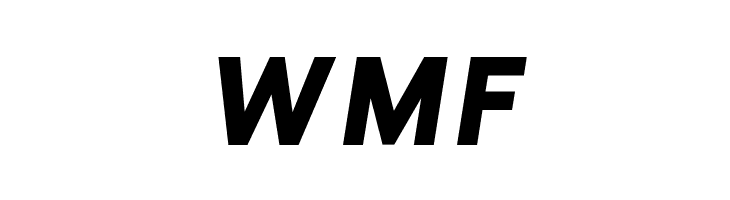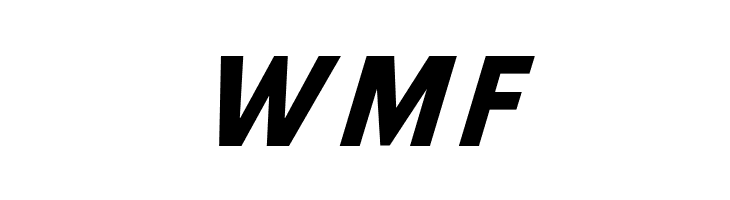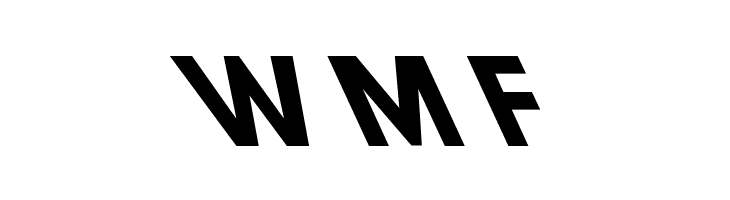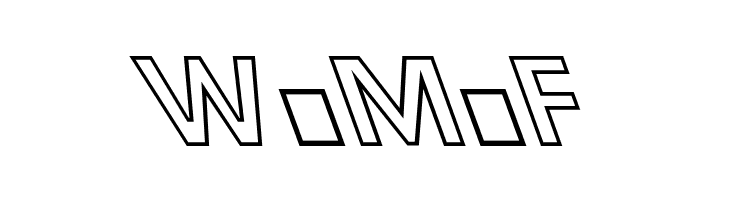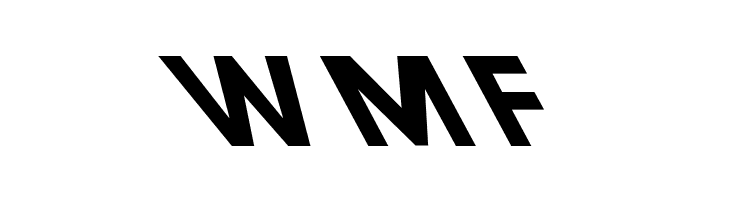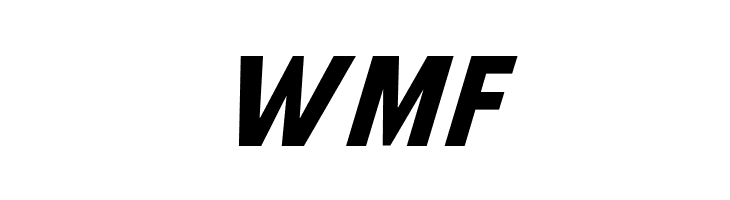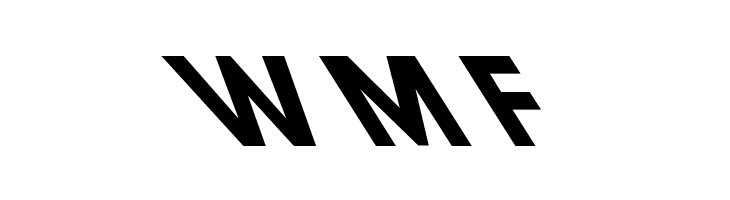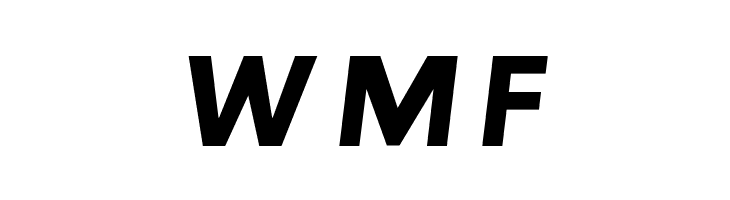
Bold, oblique font with strong, dynamic strokes and excellent readability.
Bold, oblique sans-serif font with a dynamic and modern style.
A bold, modern sans-serif font with a slight oblique angle and geometric design.
A bold, condensed, and oblique font with a modern and dynamic style.
A bold, oblique font with high contrast and wide spacing, perfect for dynamic designs.
A bold, extended outline font with a modern oblique style.
A bold, super extended, and oblique font with a modern and dynamic style.
A bold, super condensed, and oblique font with tight spacing and strong visual impact.
Bold, oblique font with a dynamic and modern style.
A bold, super extended oblique font with a dynamic and energetic style.